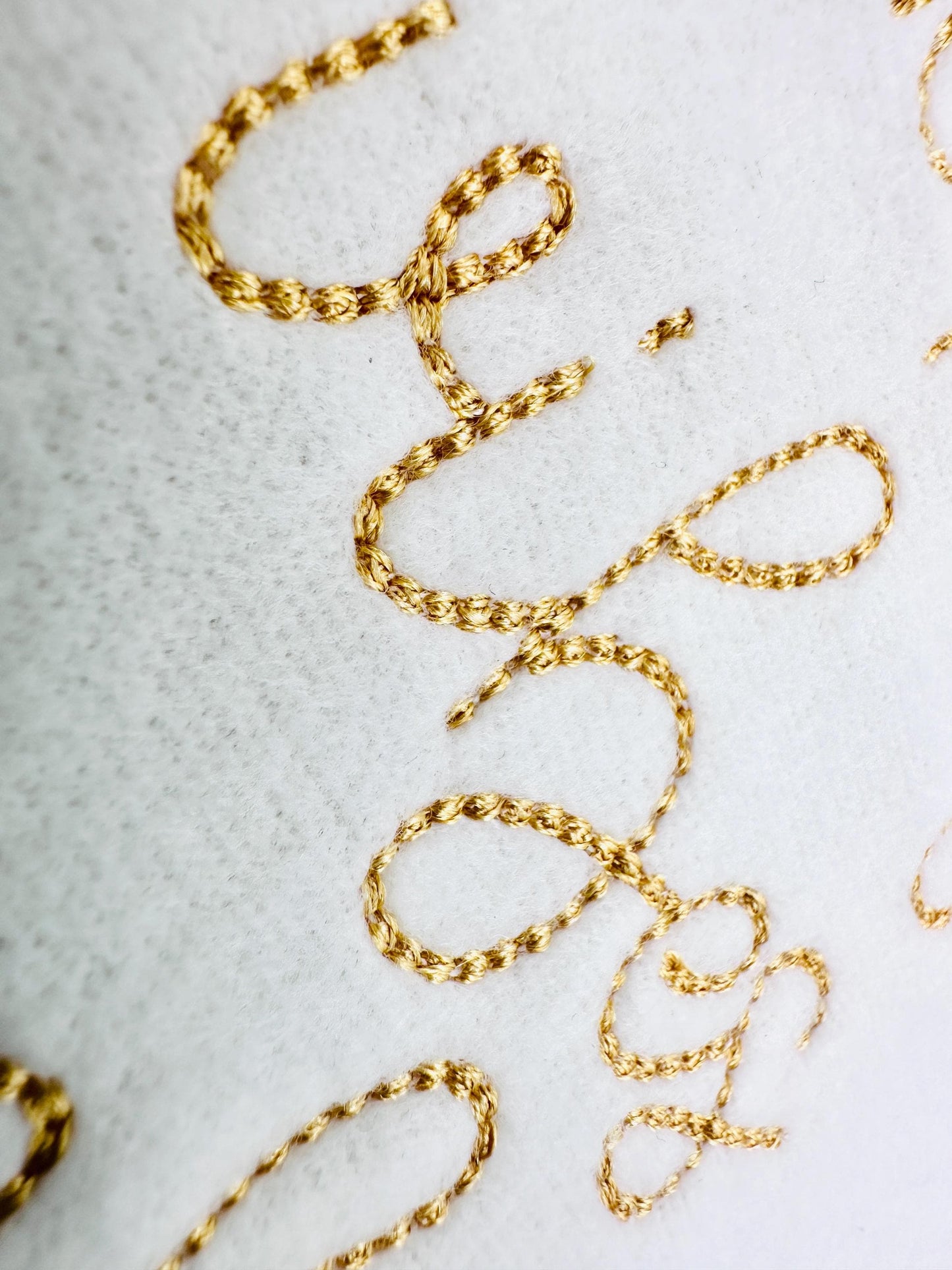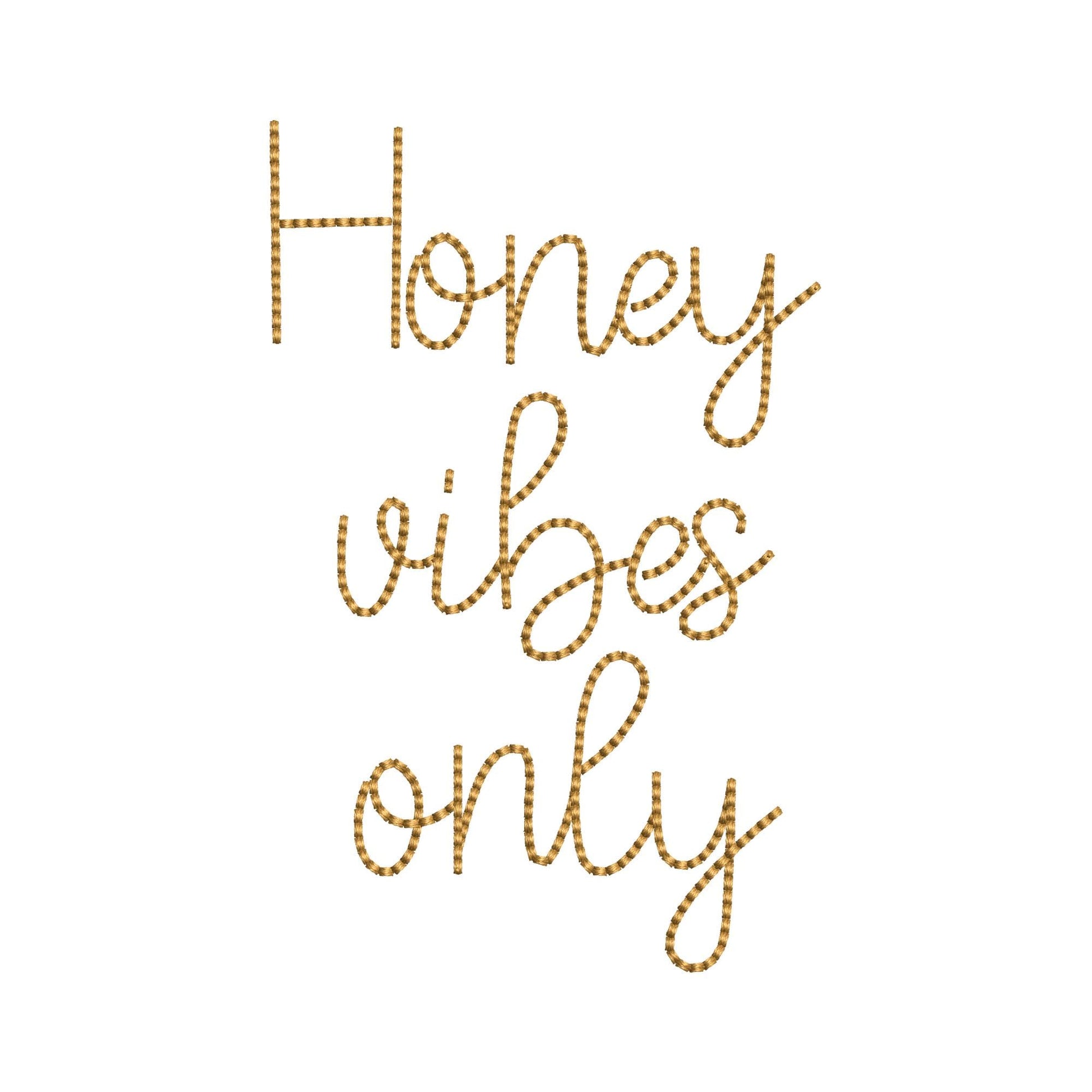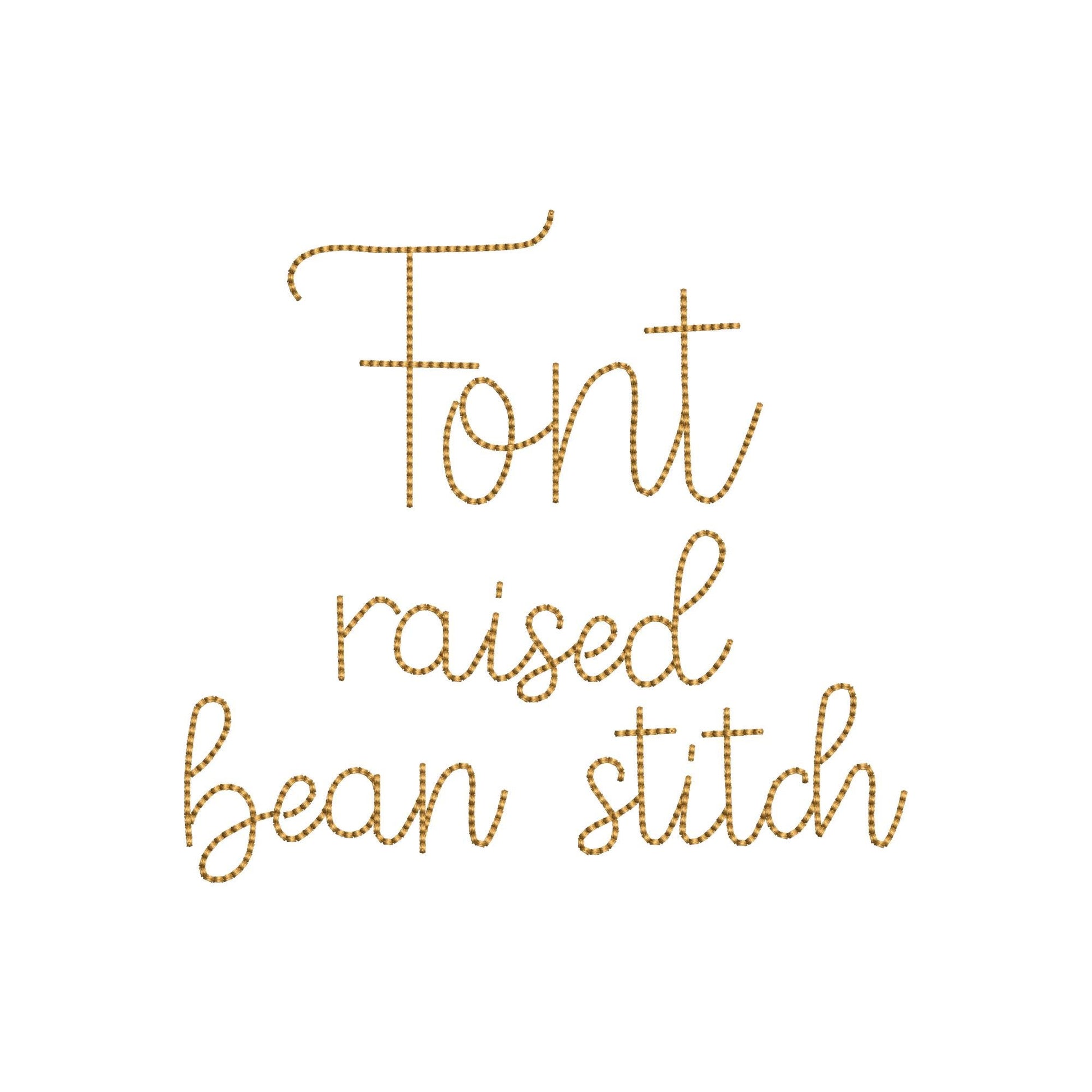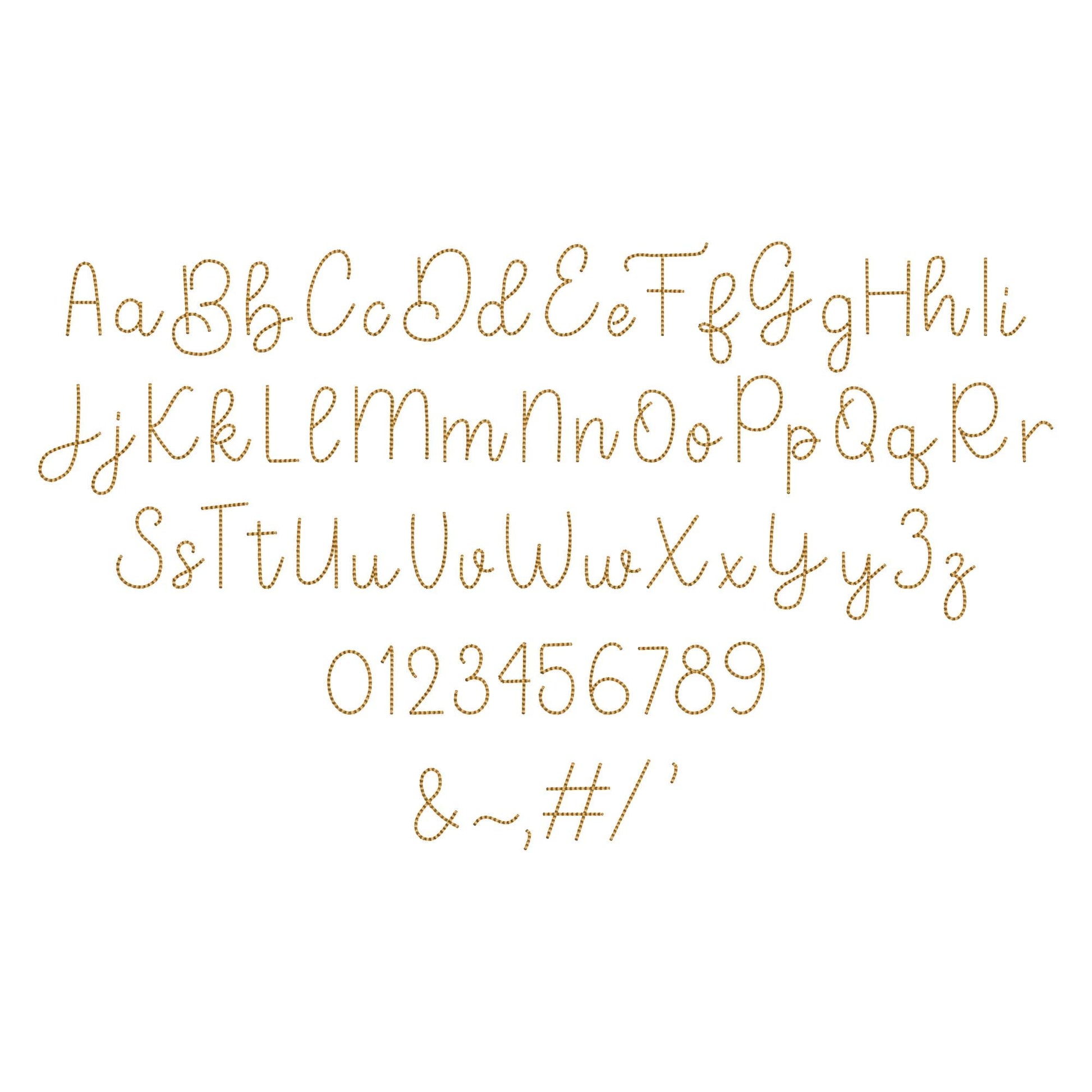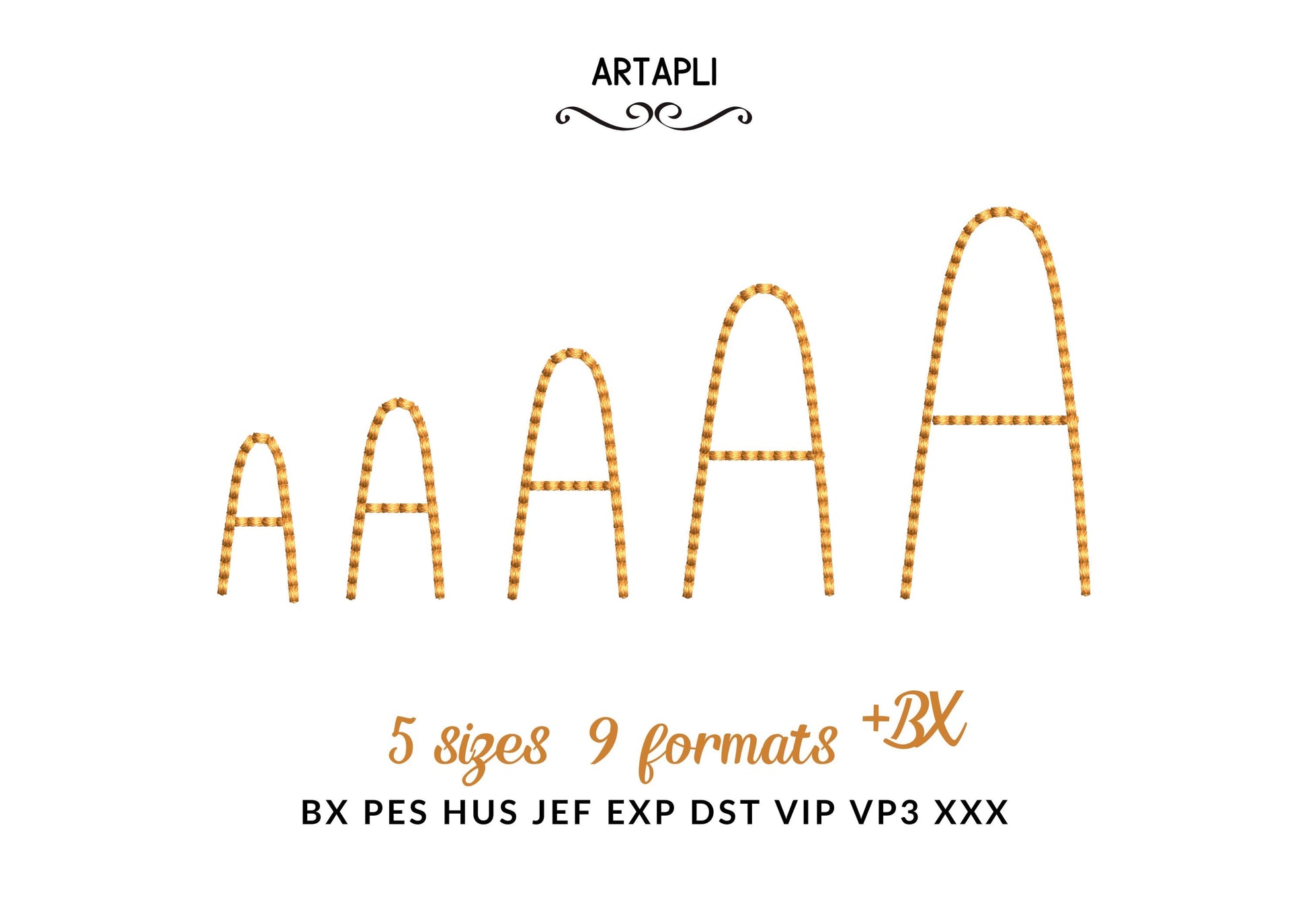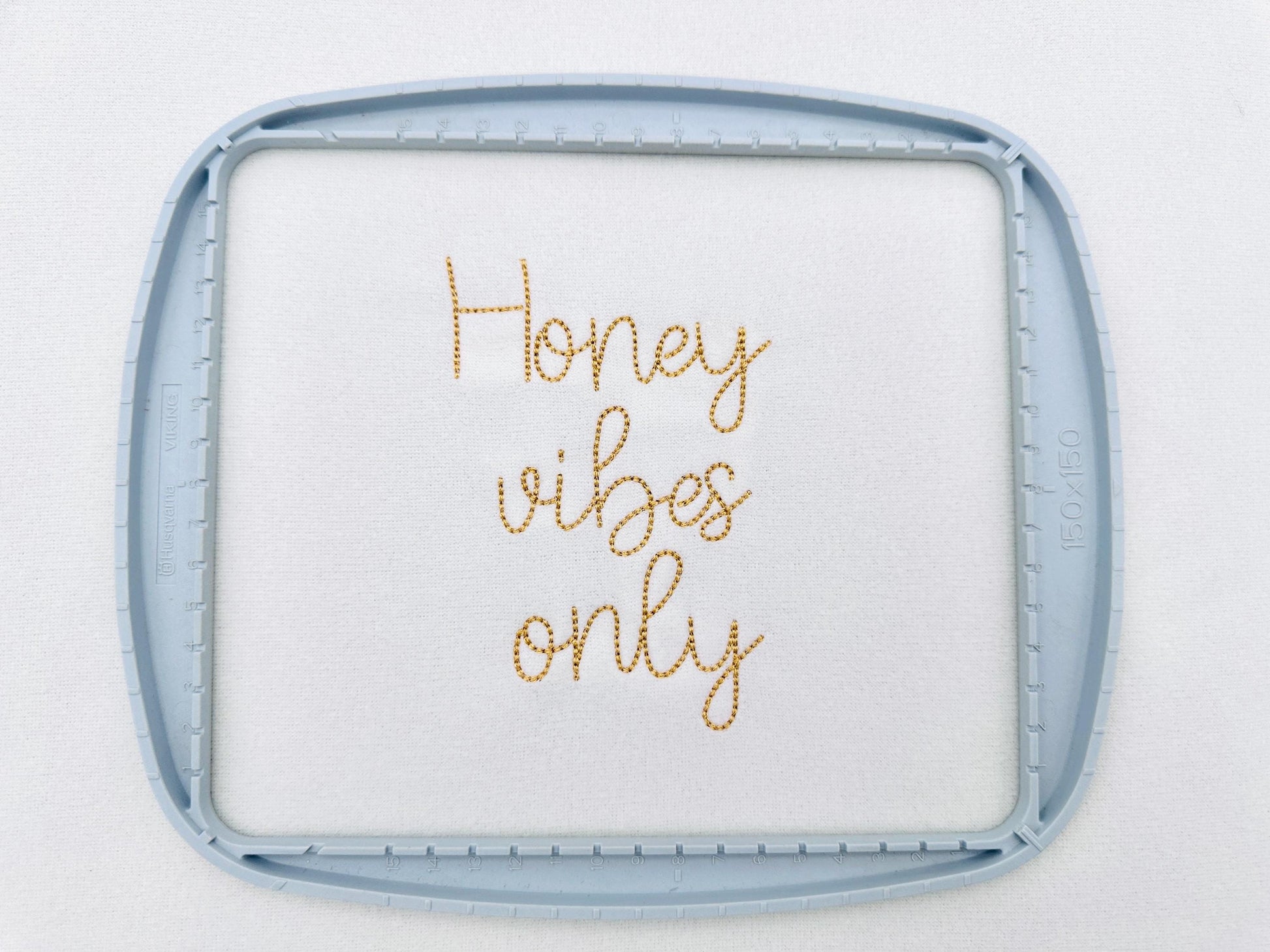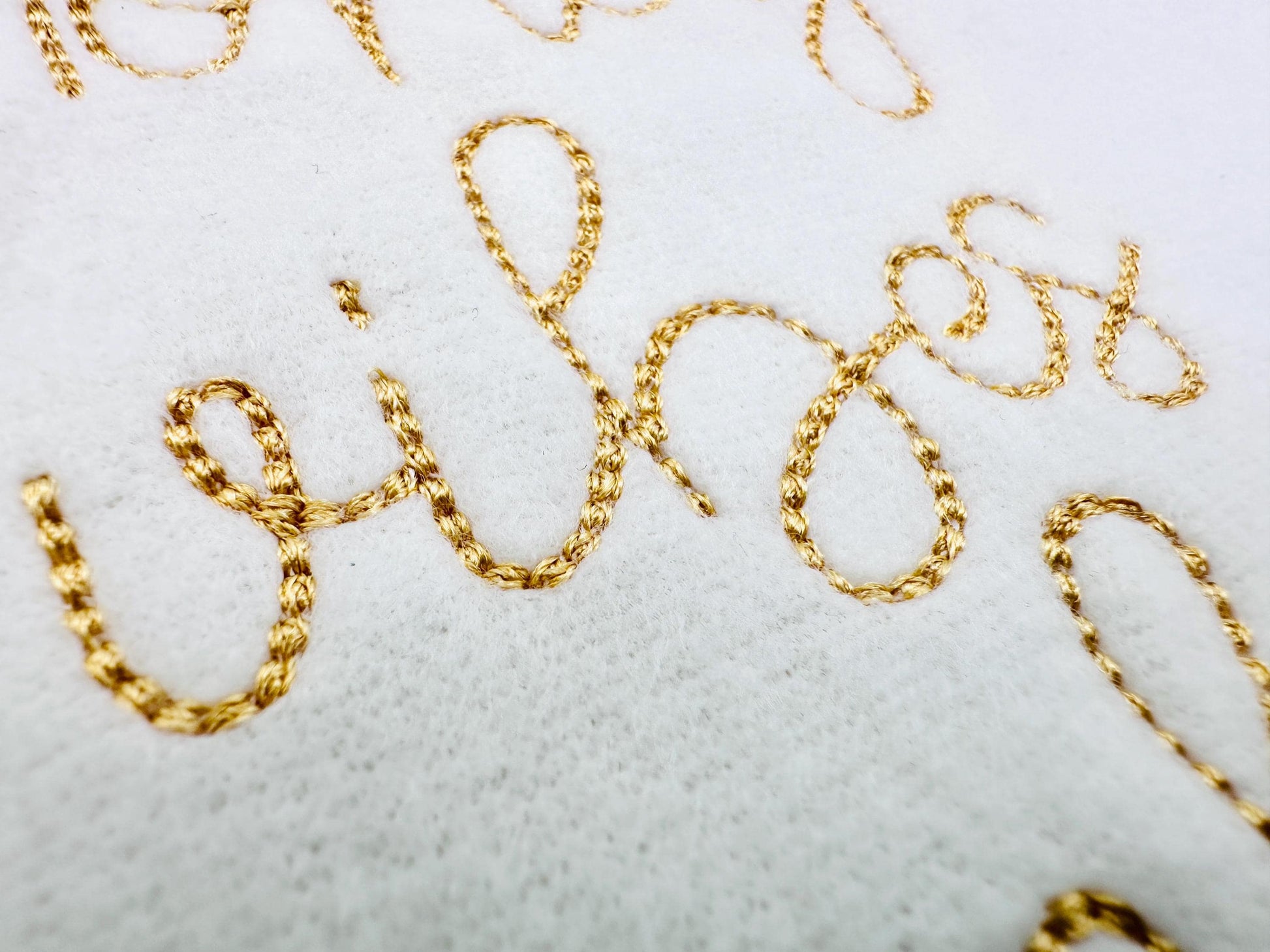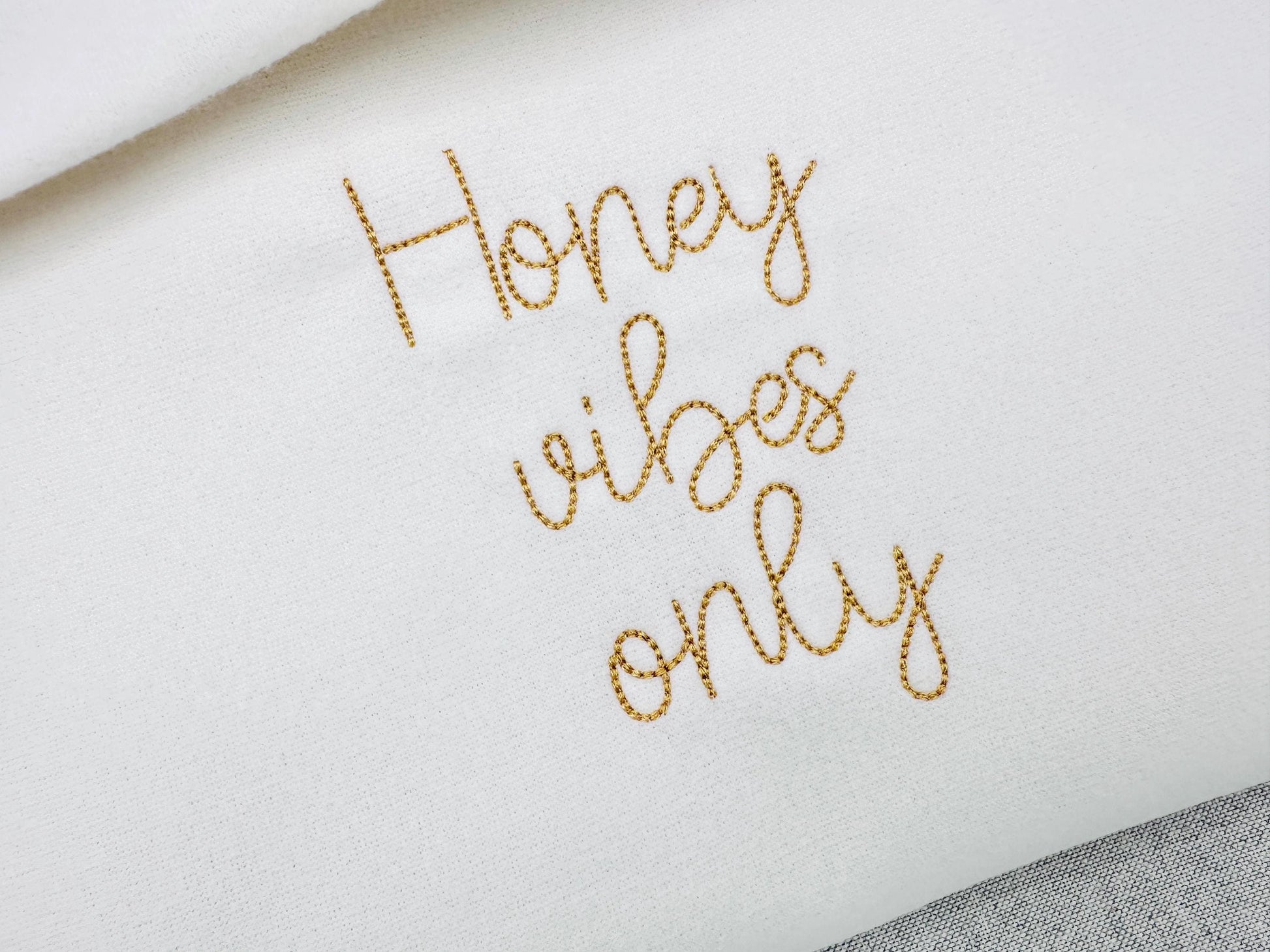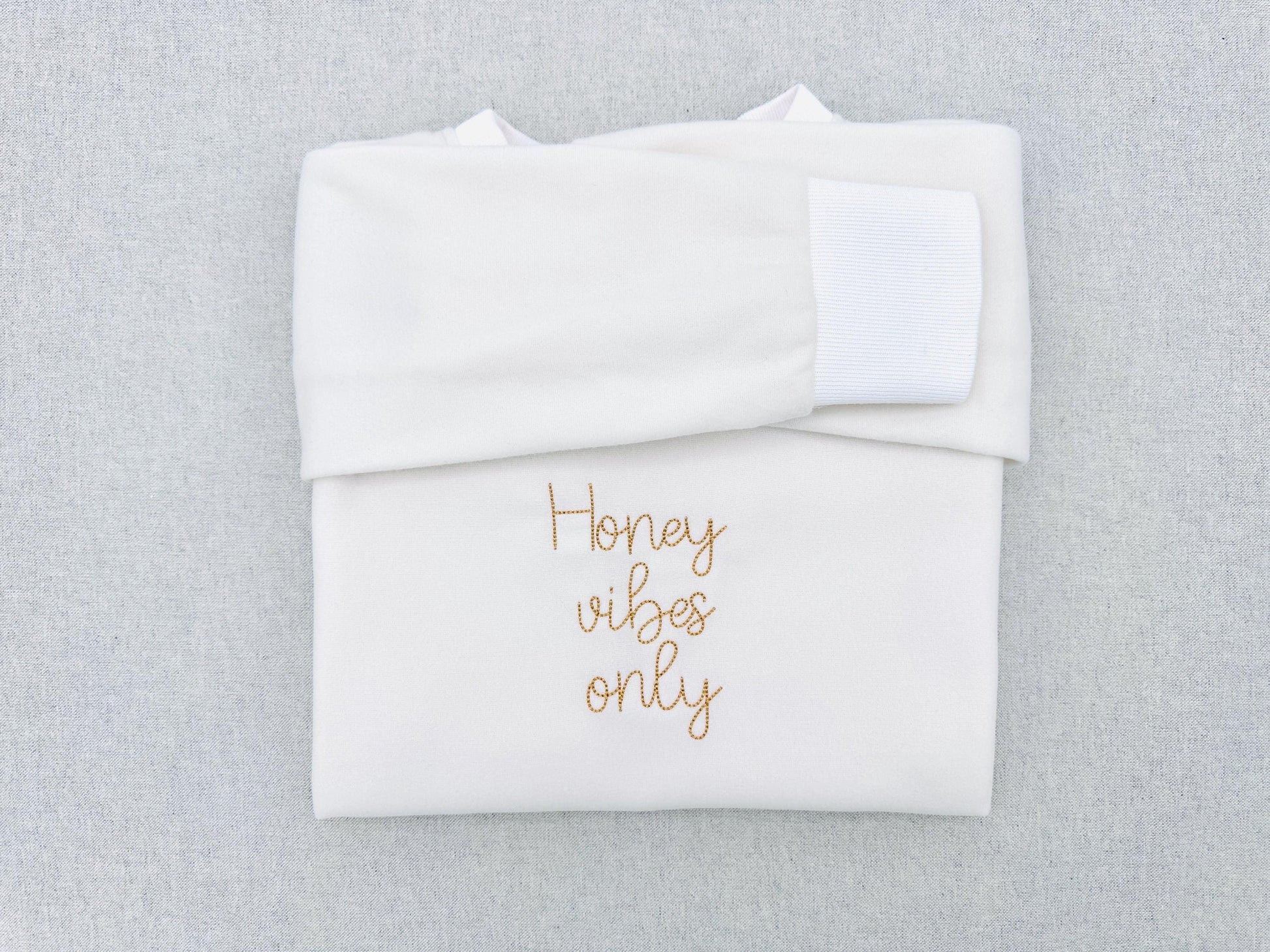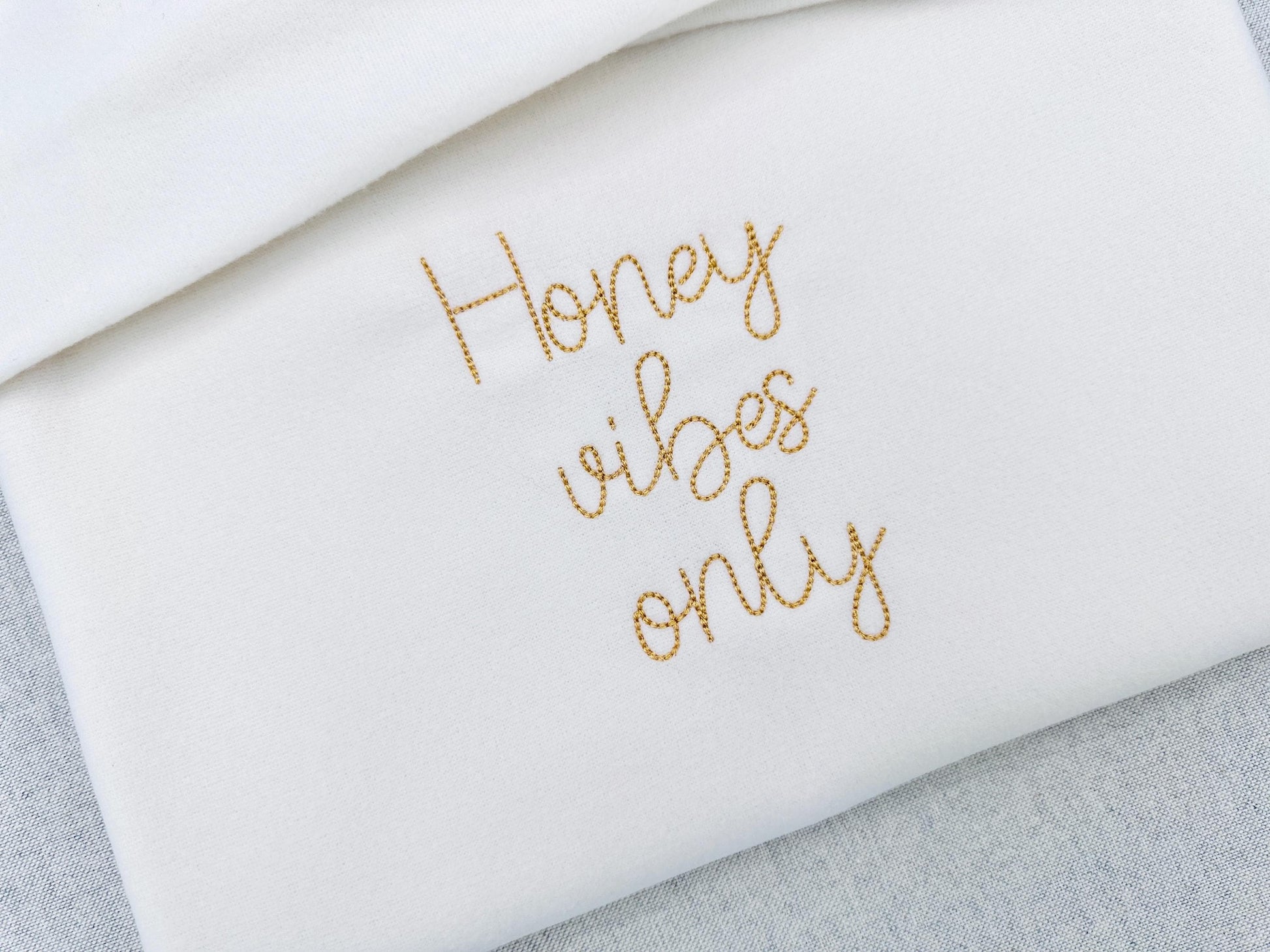
Or click to open the linkA handwritten script font in a raised bean stitch. Sweet for baby and kids' names, monograms and small gifts.
The letters come in five sizes: 0.9, 1, 1.3, 1.6 and 2 inches. A slightly raised bean stitch gives the letters a soft handmade look. Includes uppercase and lowercase letters A to Z, numbers 0 to 9 and punctuation.